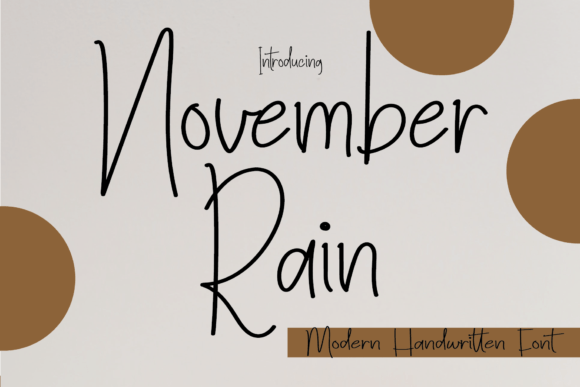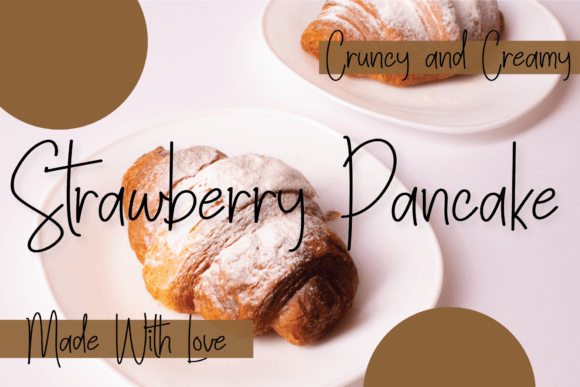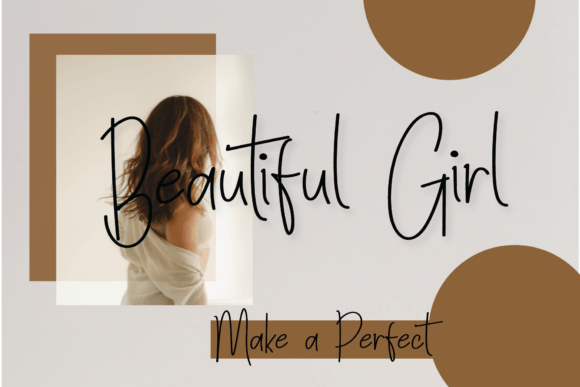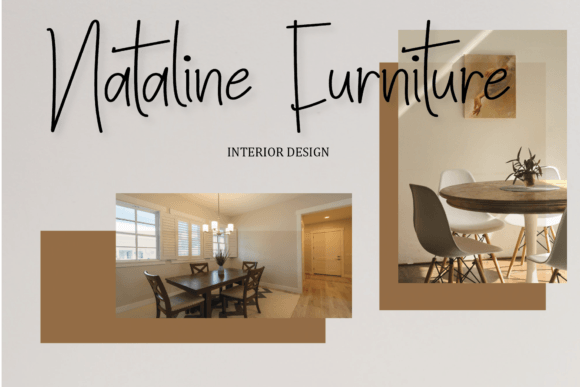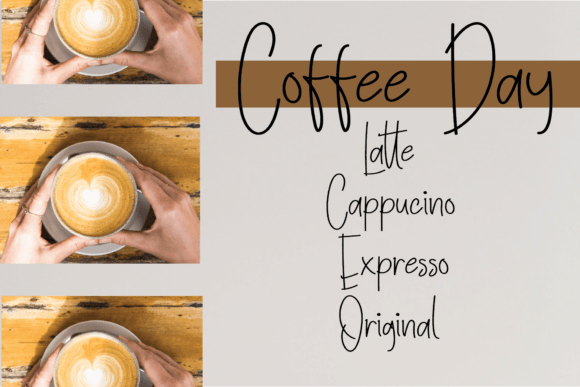
November Rain Font
About November Rain Font
November Rain is a delicate, thin-lettered handwritten script font. Whether you're using it for crafts, digital design, presentations, or making greeting cards, this font has the potential to become your favorite go-to font, no matter the occasion!